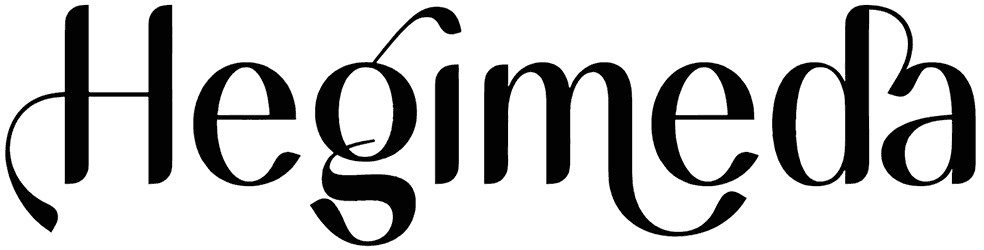
Hegimeda Font
Would you like to adorn the words of your new project with a chic and salient visual? This elegant font is able to make it happen. The Hegimeda font’s letters are noble and stylish and have the potential to make your design timeless. This fashion font is a perfect selection for many projects, such as a manager’s business card.